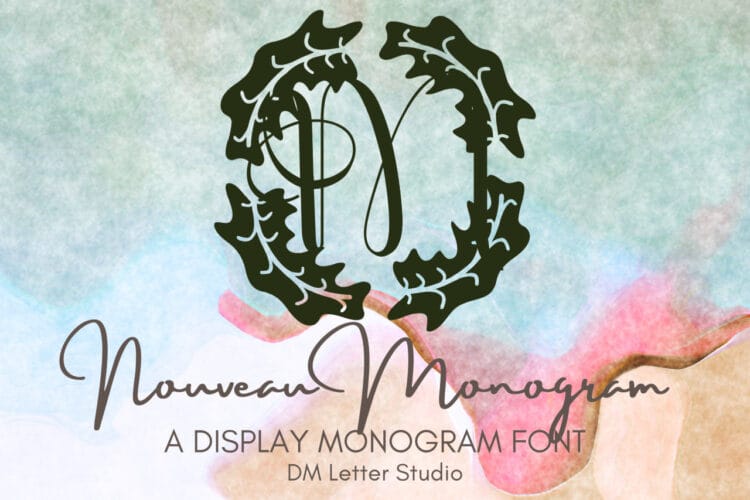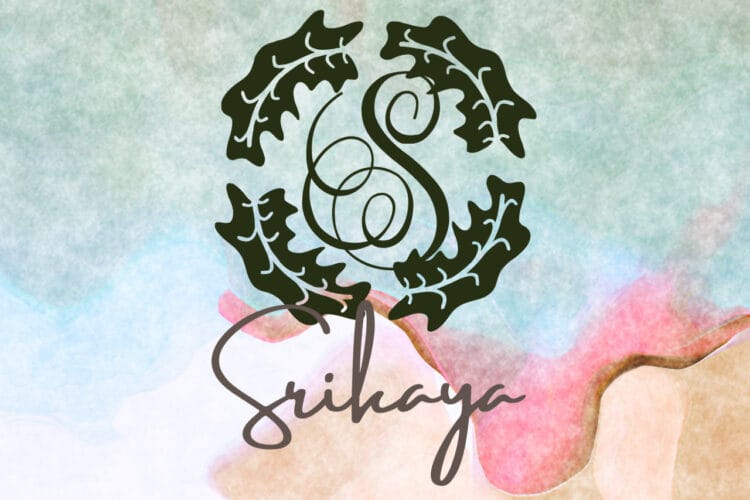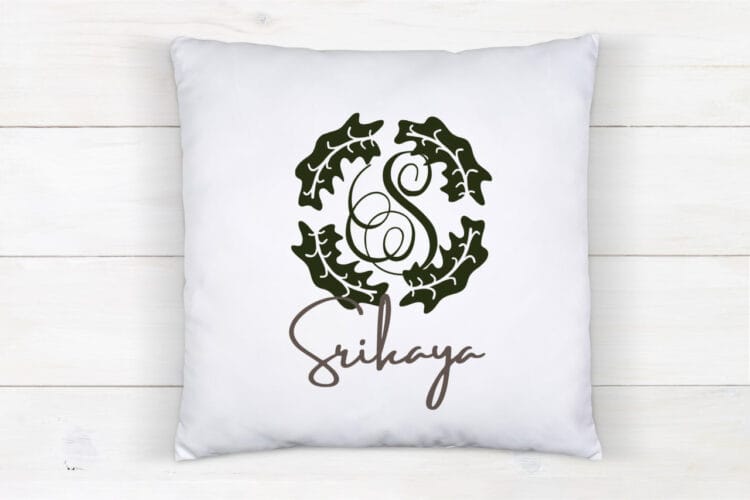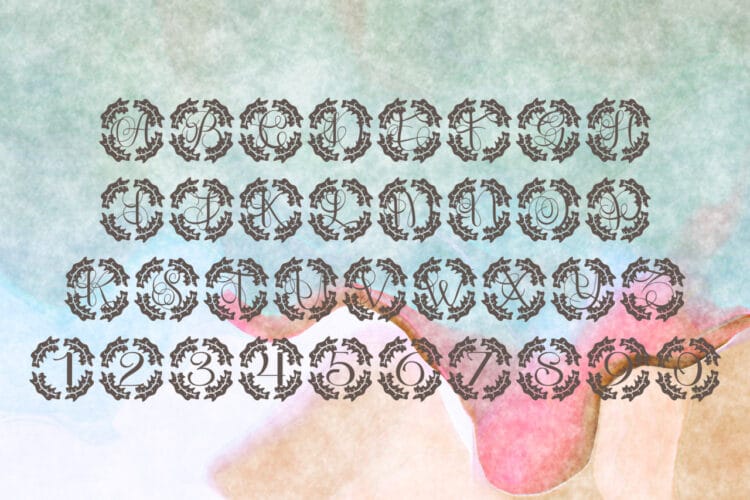
Meet Nouveau Monogram, the Monogram Font
Nouveau Monogram Font turns initials into elegant designs with a refined vintage touch. The letterforms feel graceful and artistic. Each shape is smooth, balanced, and easy to read. Because the strokes are open and clear, the font works well at small sizes. At the same time, it shows beautiful detail on large prints. As a result, Nouveau Monogram is perfect for weddings, boutique branding, stationery, and artistic keepsake projects.
Where this monogram font shines
Use single, double, or triple initials for logos, invitations, menus, place cards, and seals. Because the proportions feel decorative yet balanced, layouts look stylish and composed. For example, you can place the initials inside oval frames, floral borders, vintage labels, or soft geometric shapes. In addition, Nouveau Monogram keeps a consistent look across invitations, signage, boxes, ribbons, and gift tags. Whether used on small labels or larger displays, it scales smoothly and keeps its charm.
Design tips for Nouveau Monogram
Keep the initials generous and give them room to breathe. This helps the decorative details stand out. Pair the monogram with a classic serif for body text or a clean sans serif for dates and details. Also, textured paper, vellum overlays, and metallic foils enhance the vintage-inspired look. Because the design is already expressive, keep wording short. That way, the monogram stays the main focus on seals, favors, and small packaging.
Select stylistic alternates for key letters
Curves optimized for foil, letterpress, engraving, laser cutting, and clean vinyl paths
Why creators choose this monogram font
You want a monogram that feels artistic, elegant, and easy to use. At the same time, you need clarity and flexibility. That is why Nouveau Monogram Font is a great choice. It delivers decorative beauty with simple setup. In the end, your designs look polished across print, events, and packaging.